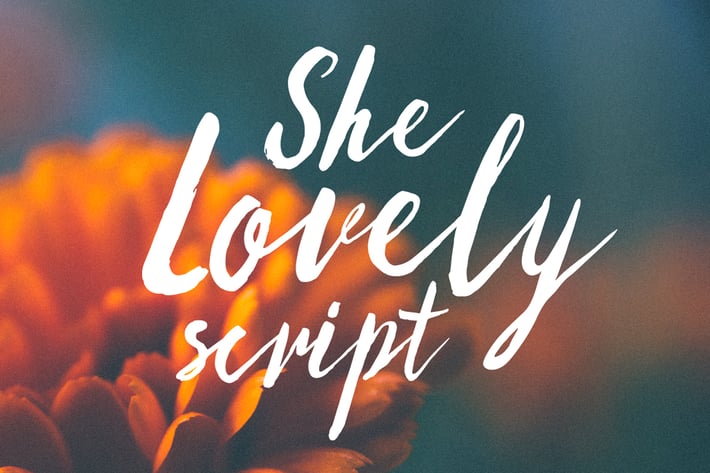
She Lovely Fonts
She Lovely is a handwritten script font designed using brush pen. This font perfect for branding, invitation, advertising and more. It includes:
Standard character uppercase & lowercase
Multiple language support.
Alternates